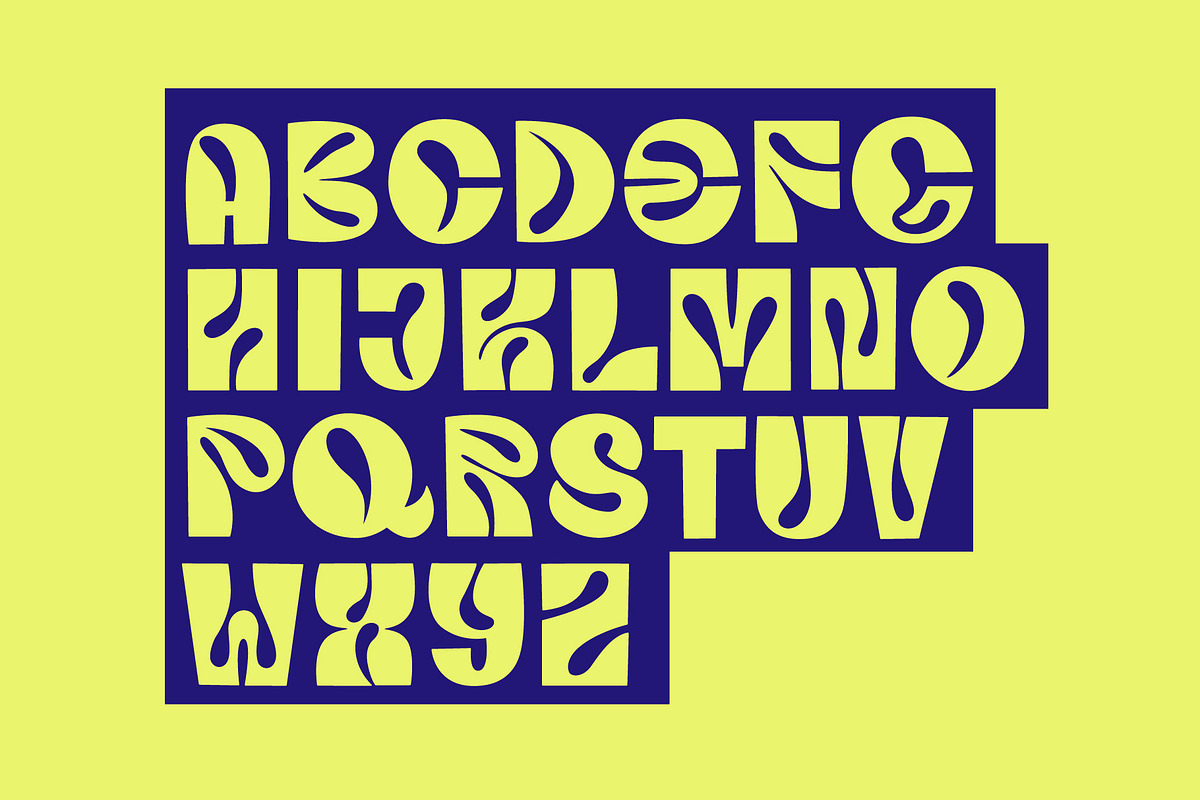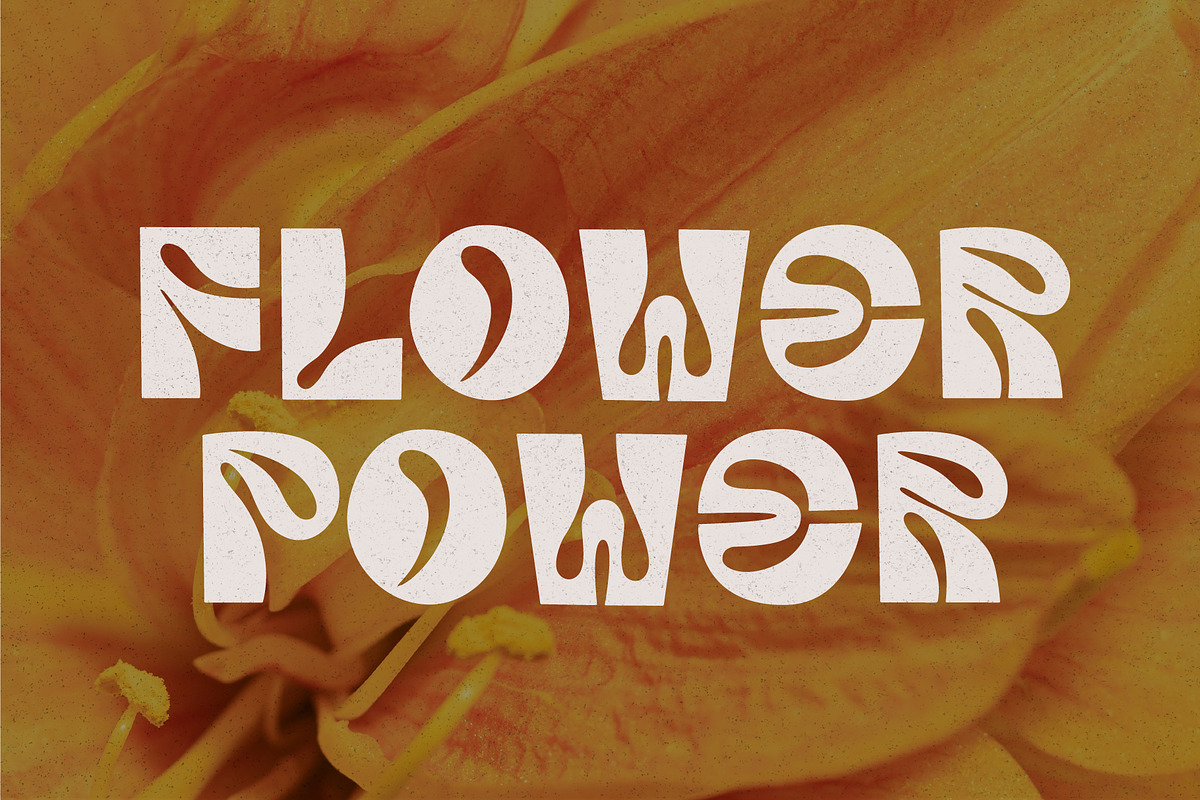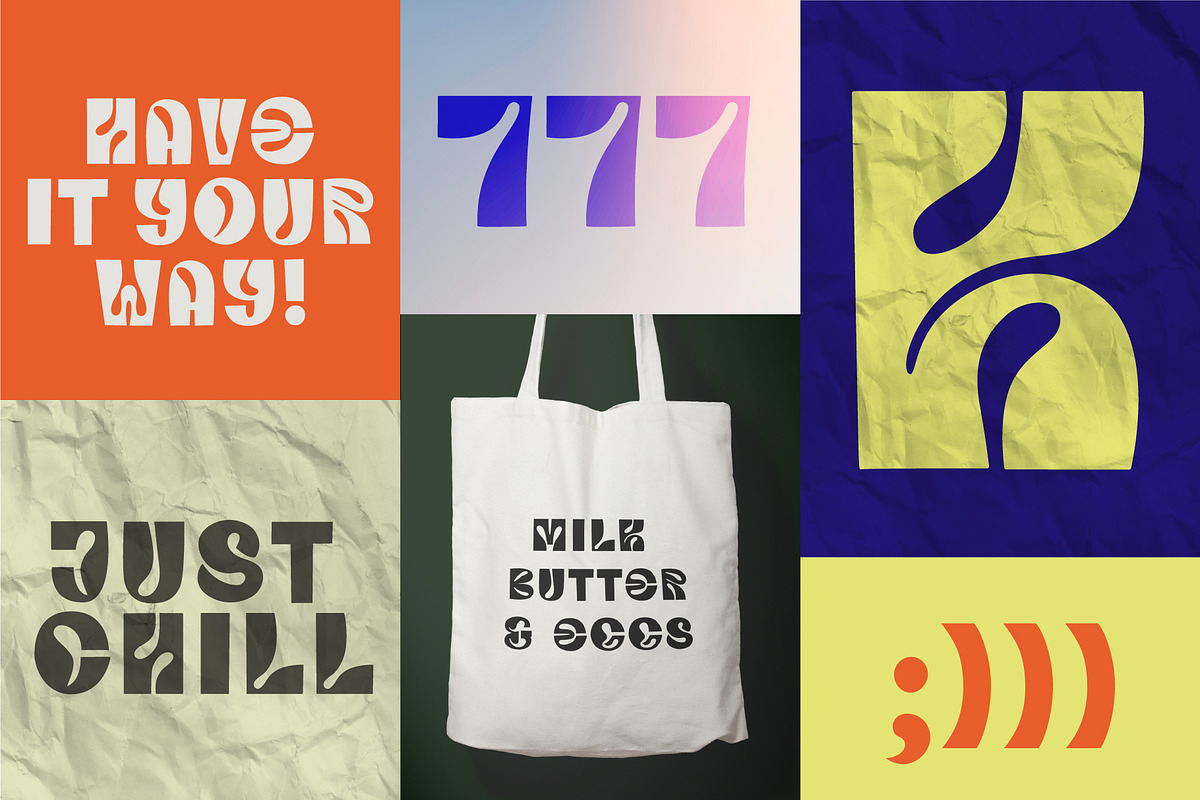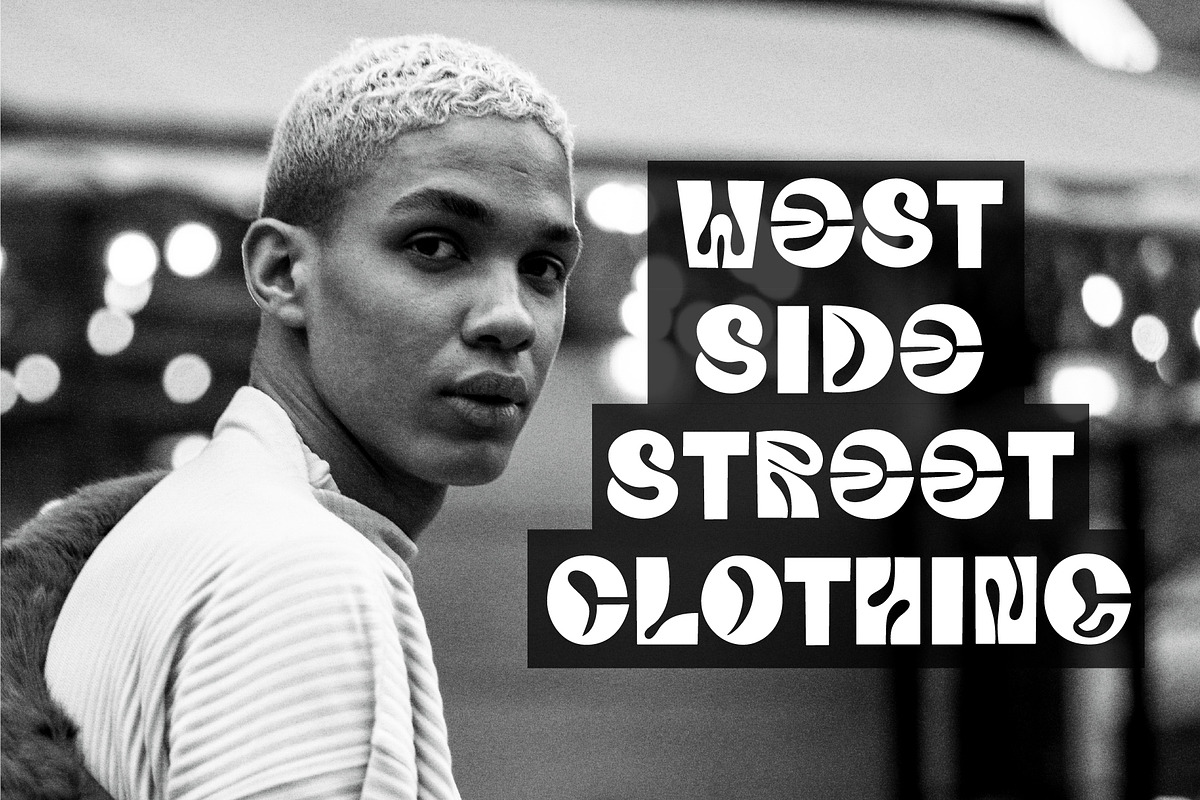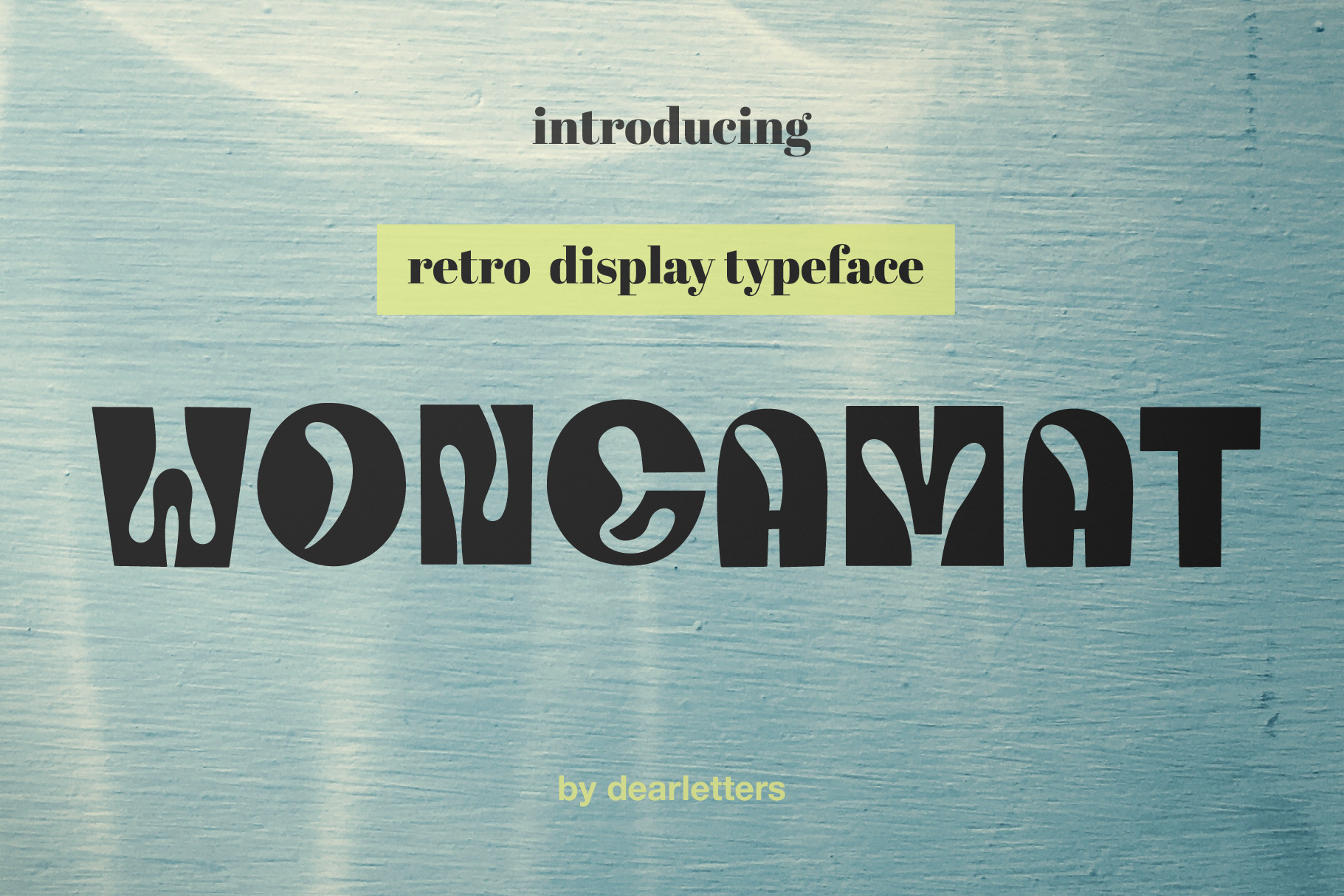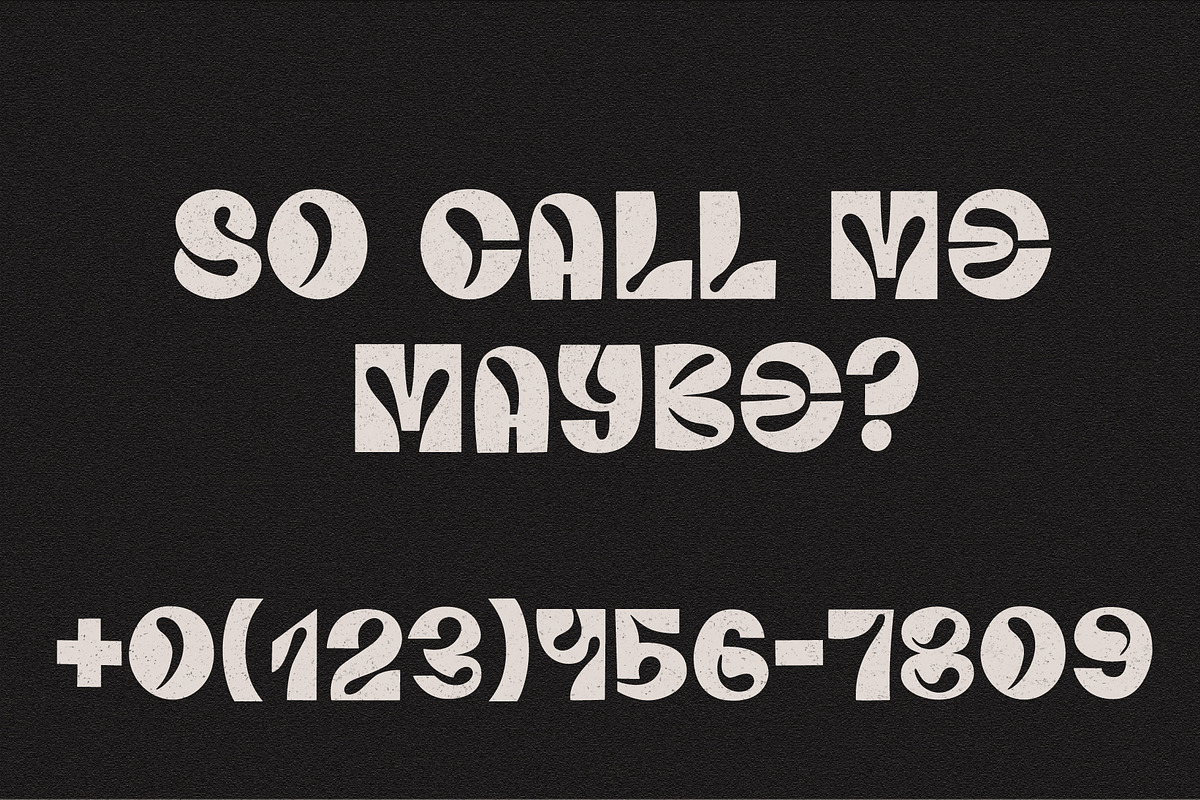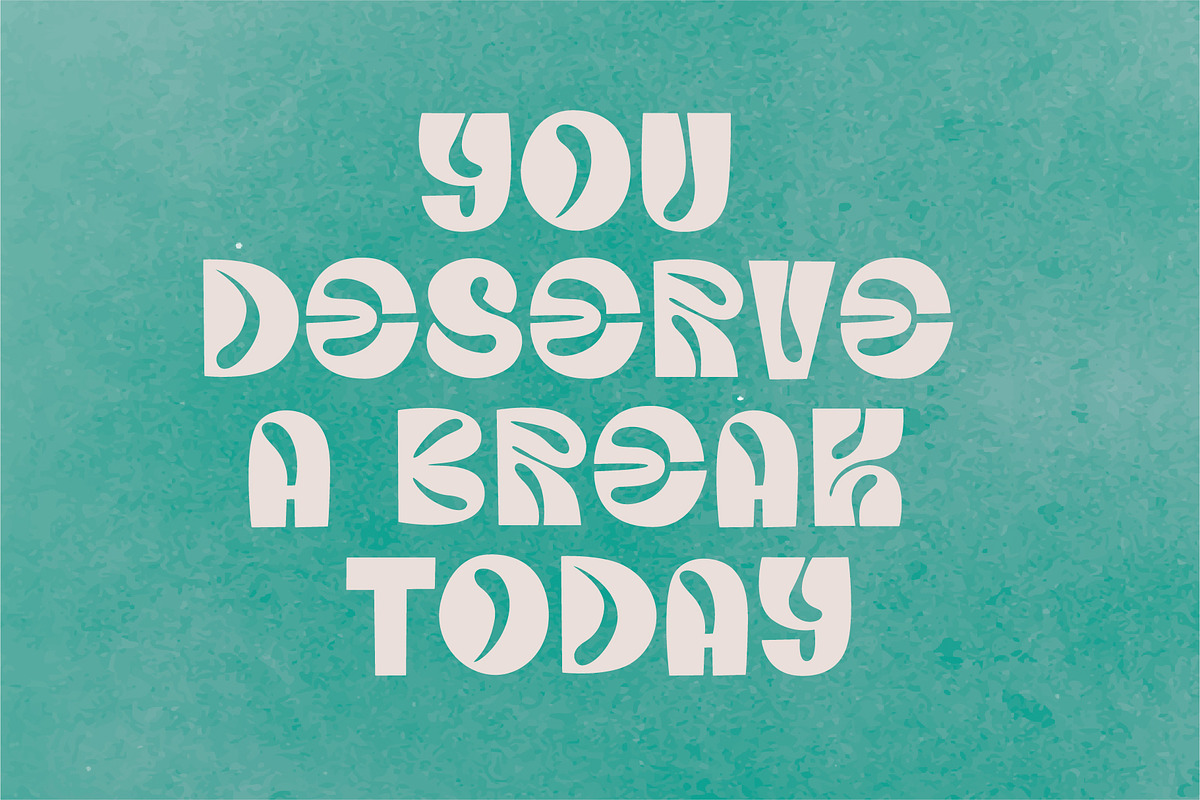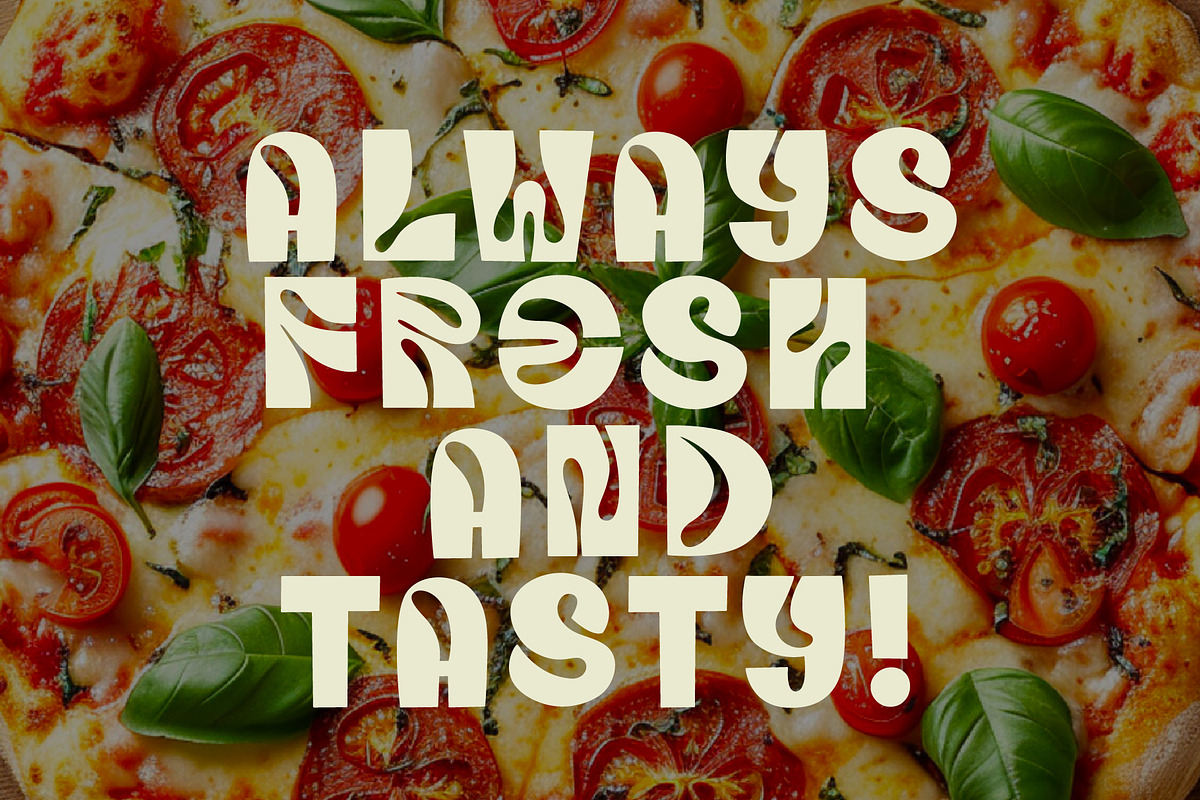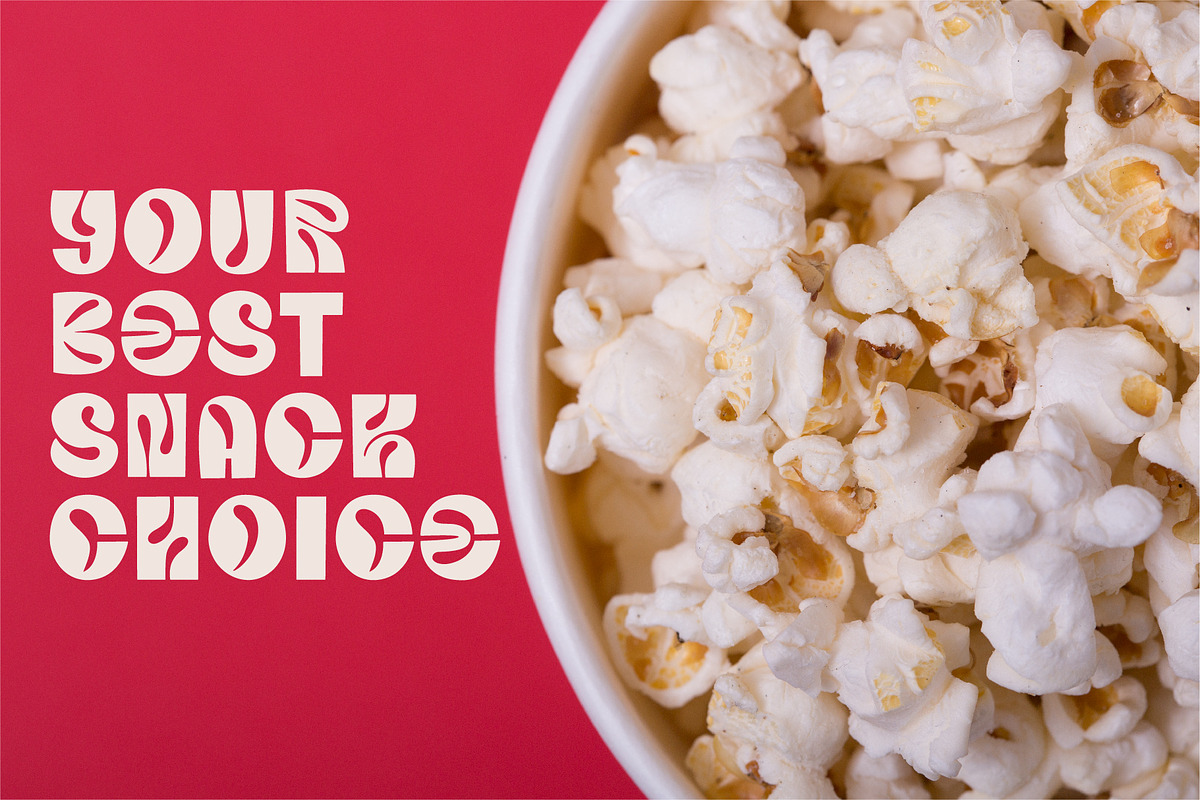
Wongamat - Display Typeface
WONGAMAT is a retro inspired flowy yet bold and funky sans serif font. Great for any project that needs an eye-catching groovy touch and is perfect for headlines, branding, social media, advertising, logos - you name it ;)